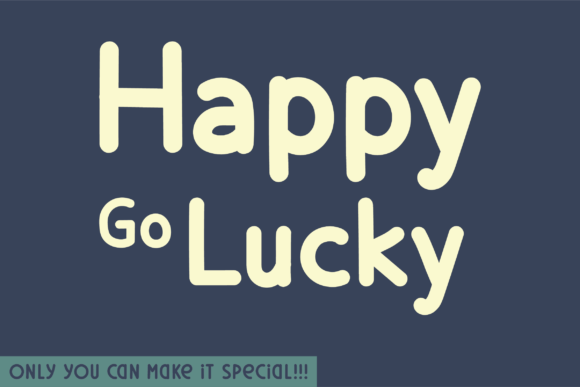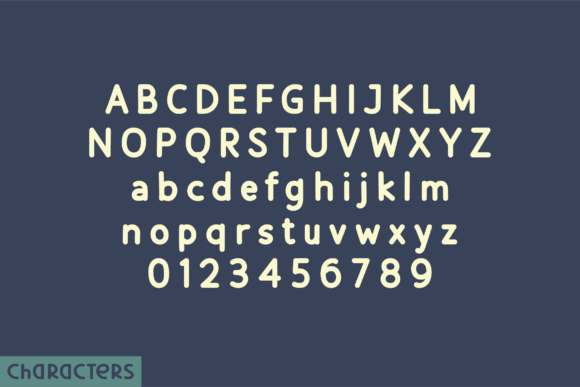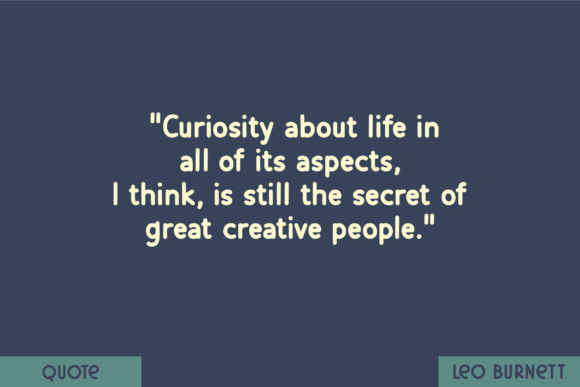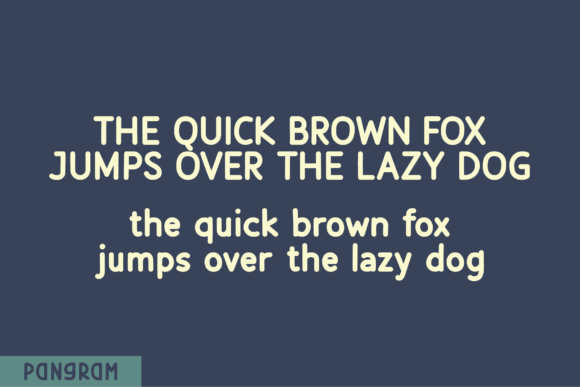
Happy Go Lucky Font: A Cute Sans Serif for Playful Designs
About the Happy Go Lucky Font
Crafted with precision, the Happy Go Lucky Font is ready to bring your ideas to life. Happy Go Lucky is a natural sans serif font, perfect for quotes, notes, tees, and any product design that needs a classic touch!
Its friendly, slightly rounded forms make it ideal for branding projects needing a casual yet approachable feel, particularly logos, short headlines, and packaging for products targeting a younger demographic. It also works well on posters and social media graphics where readability at larger sizes is key. However, avoid using it for body text or lengthy paragraphs; its legibility suffers at smaller sizes.
Happy Go Lucky pairs well with a crisp geometric sans-serif for a modern contrast, or a classic serif like Garamond for a touch of sophistication. For a more playful feel, consider pairing it with a handwritten script font.
The font’s overall personality is cheerful and approachable, making it a great choice for brands focused on youthfulness, optimism, and approachability.
Happy Go Lucky Font Usage Examples
Happy Go Lucky Font Example